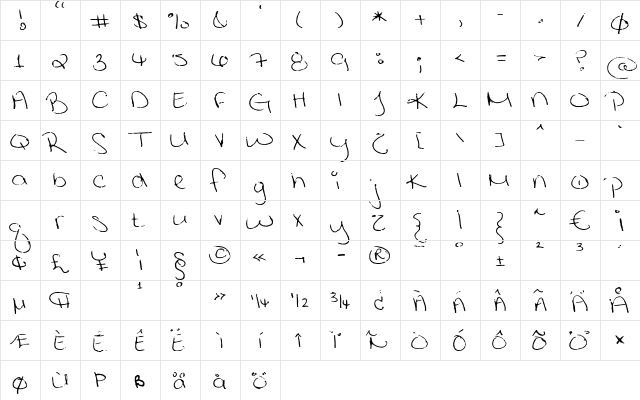
FG Torun Regular
Design Context for FG Torun Typeface
FG Torun is a composed and adaptable typeface that performs quietly and consistently across a wide range of design contexts.